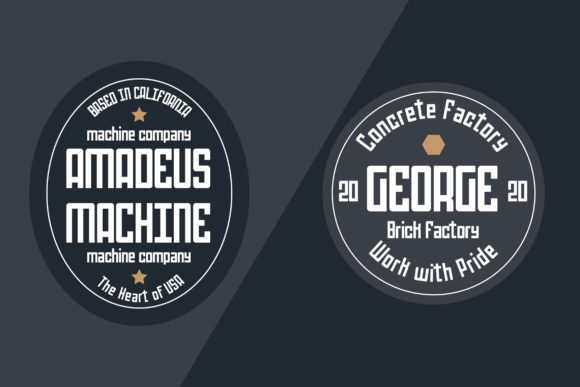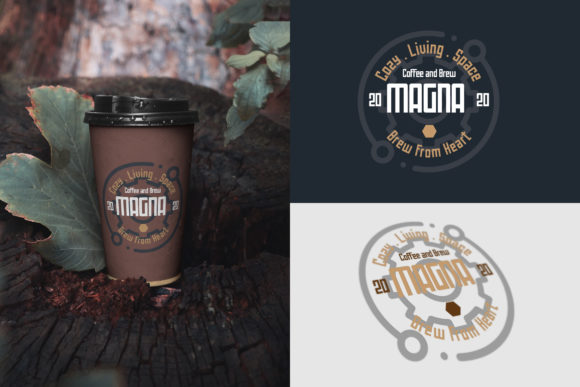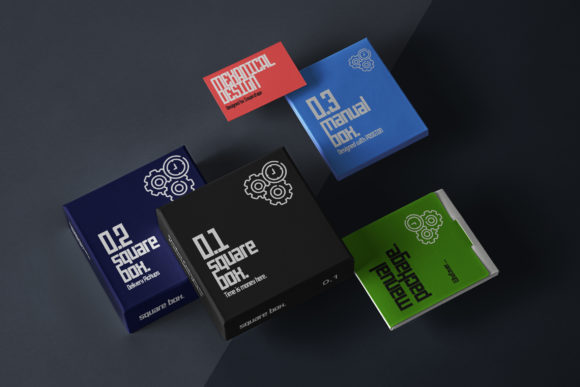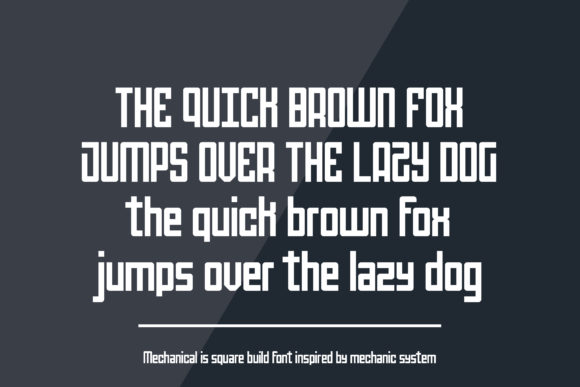
Introduction to Mechanical Font
Have you ever stared at a blank canvas, wondering what design will bring your creative vision to life? That’s exactly where I found myself last week, working on a futuristic-themed project. I wanted to create a visual masterpiece that would transport viewers to a world of advanced technology and innovation. But something was missing – a font that could elevate my design and make it truly stand out.
That’s when I discovered the Mechanical Font, a high-quality display font that perfectly captured the essence of a futuristic world. With its sleek lines, geometric shapes, and metallic feel, this font is a game-changer for designers looking to add a touch of sophistication to their creative projects.
Whether you’re working on a futuristic novel, a sci-fi movie poster, or a high-tech product design, the Mechanical Font is a valuable design resource that can help you achieve your creative goals. And the best part? It’s available for free download, making it an accessible and versatile tool for designers of all levels.
Key Features of Mechanical Font
- High-quality design for a wide range of creative projects, including industrial, futuristic, and sci-fi themes.
- Features a transparent background, allowing for seamless integration into any design without visual clutter.
- Designed with a mechanical aesthetic, including geometric shapes and industrial elements, making it a unique design resource.
Honest Review: Mechanical Font
As a designer, I’m always on the lookout for new and interesting design resources to enhance my creative projects. The Mechanical Font caught my attention, and I decided to give it a try.
- High-quality design: The font is well-crafted and looks great on a transparent background.
- Unique style: The Mechanical Font’s industrial aesthetic is perfect for projects that require a edgy, futuristic feel.
✨ One of the things I love about this font is its versatility. It’s suitable for a wide range of projects, from tech-related designs to fashion and lifestyle brands.
Overall, I’m impressed with the Mechanical Font. It’s a great addition to any designer’s toolkit, and its unique style will definitely help my creative projects stand out.
Mechanical Font is perfect for projects that require a modern, industrial feel. Use it for design projects such as:
- Posters
- Product packaging